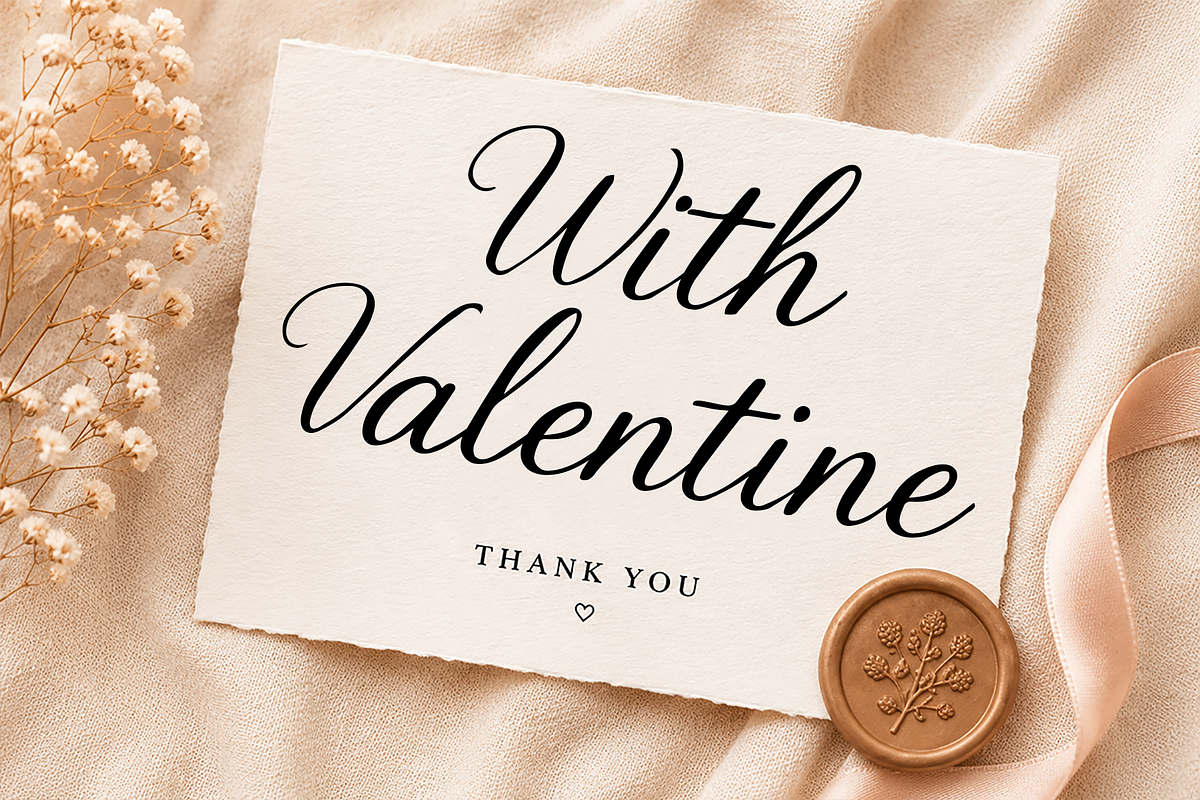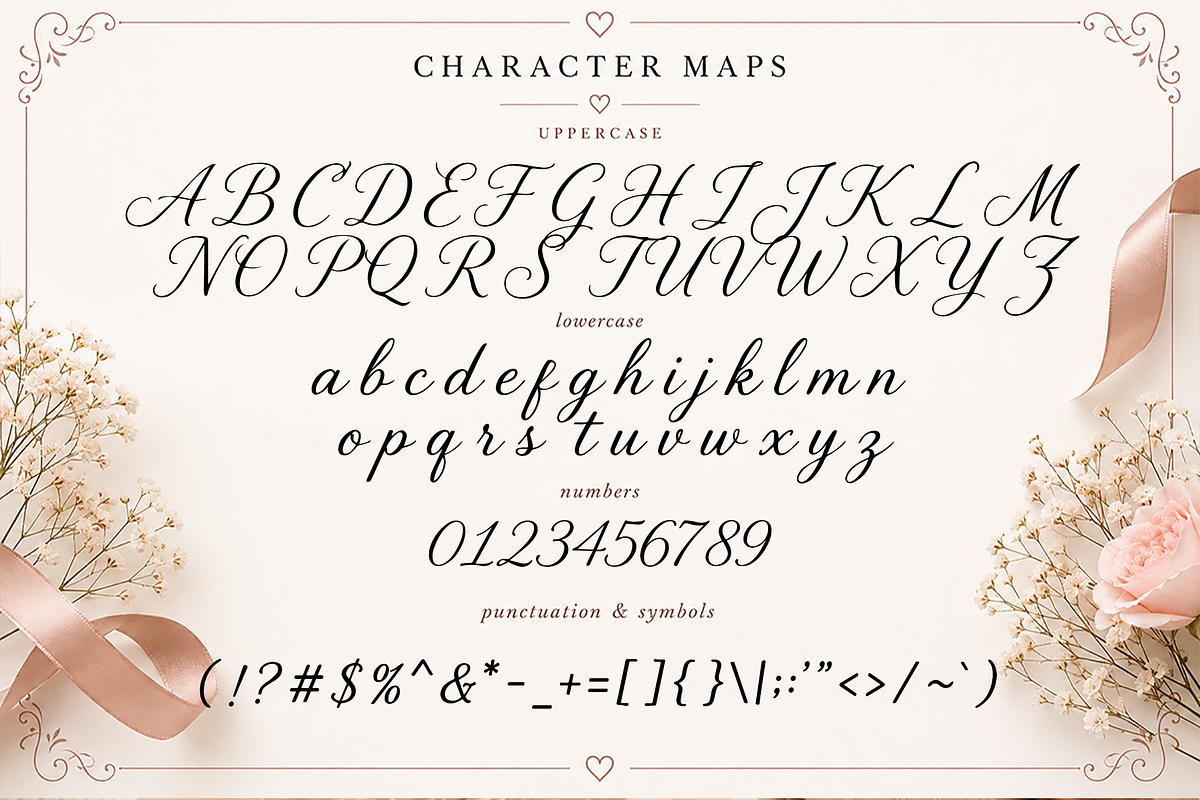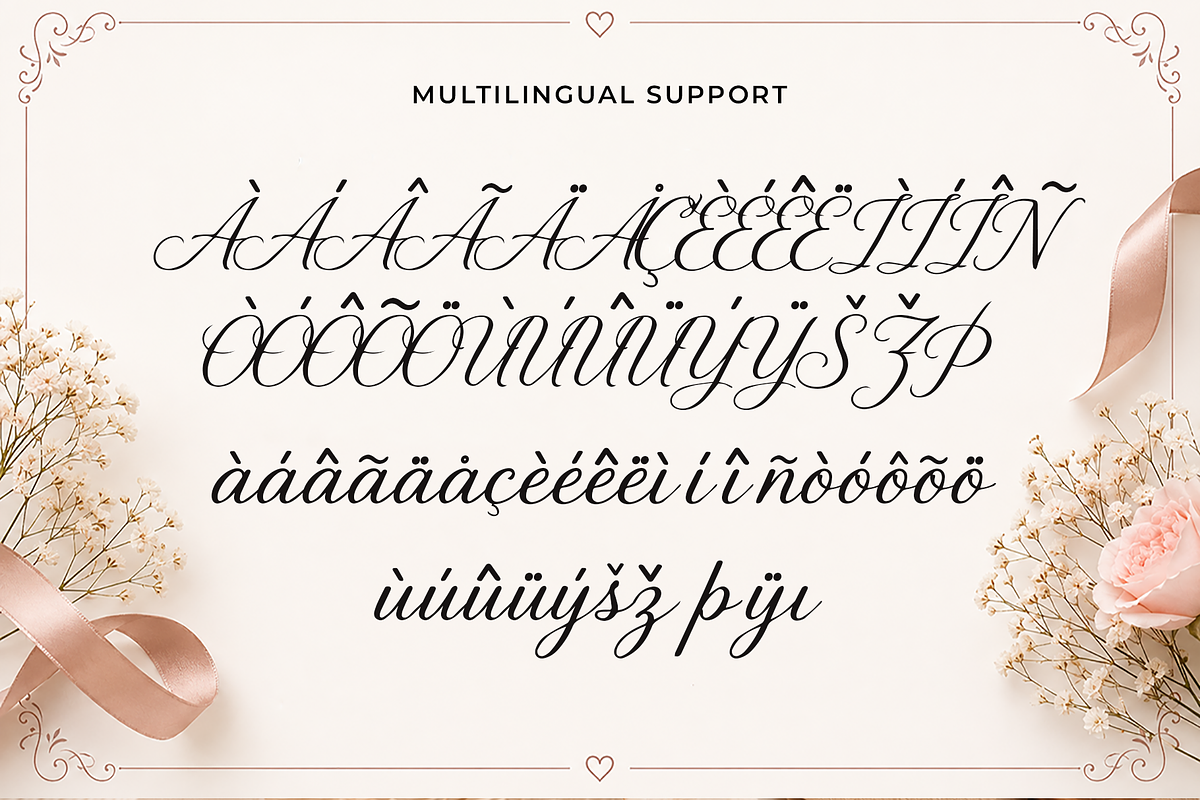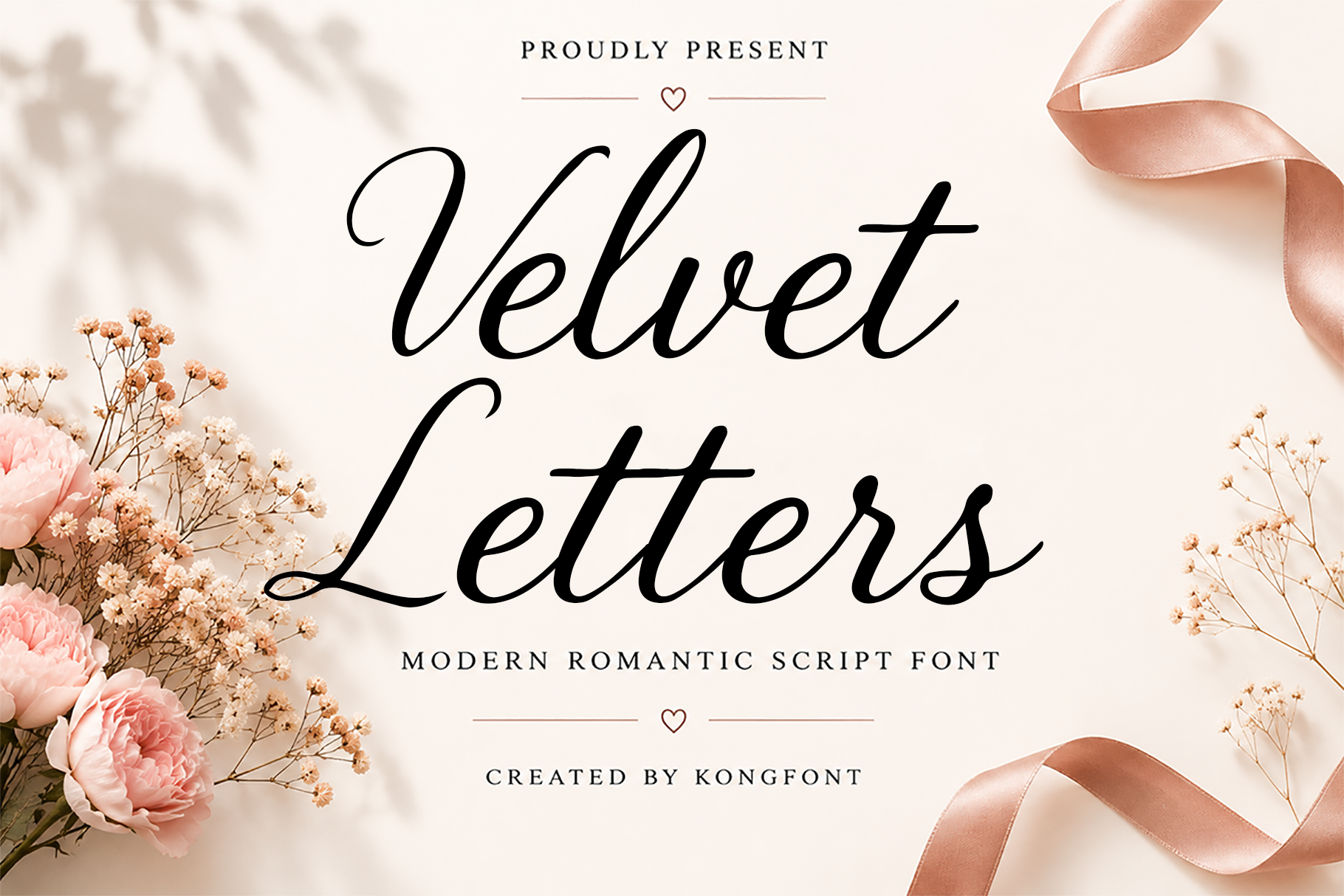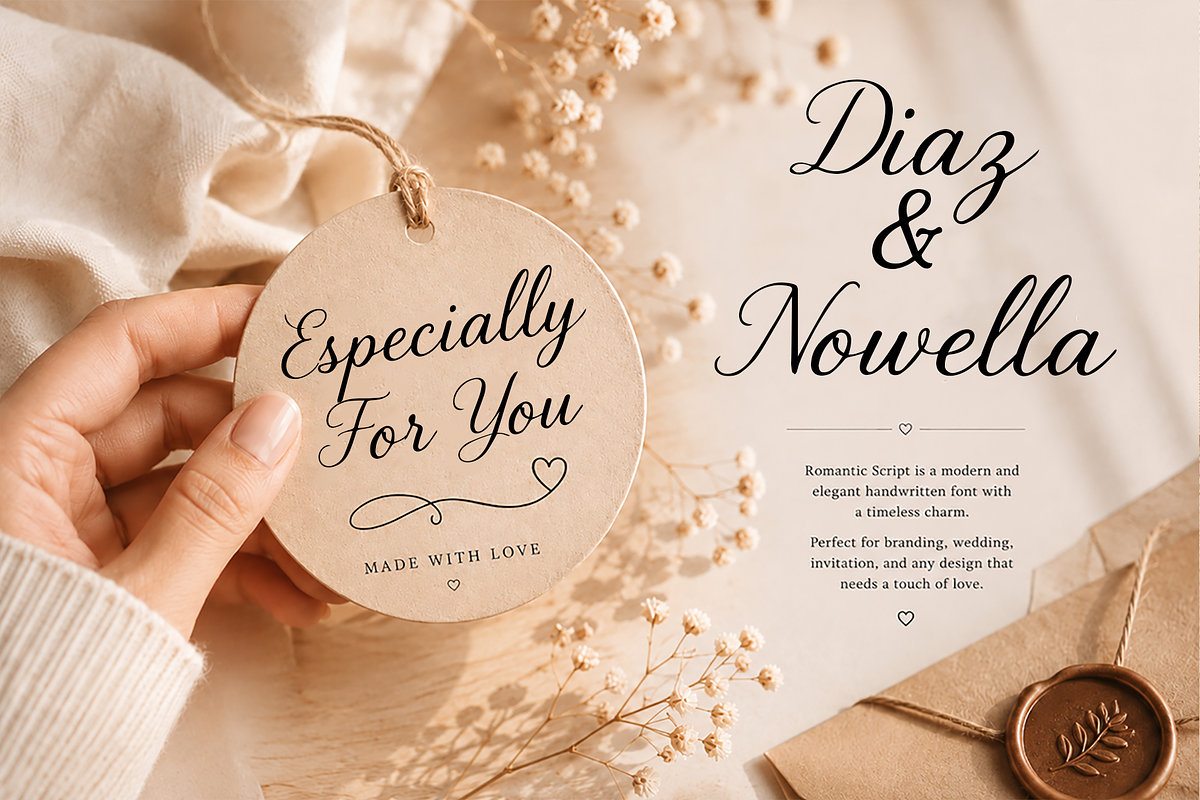
Velvet Letters - Modern Script Font
Velvet Letters - Modern Romantic Script Font
Meet "Velvet Letters," a modern romantic script font designed with elegant curves, graceful letterforms, and a naturally flowing handwritten style. Its sophisticated character brings warmth and personality to every composition, making it an ideal choice for projects that require a delicate, feminine, and luxurious touch.
With its versatile romantic aesthetic, Velvet Letters works beautifully across both digital and printed projects. Pair it with a clean serif or minimalist sans serif to create stylish typography combinations for modern branding and premium creative projects.